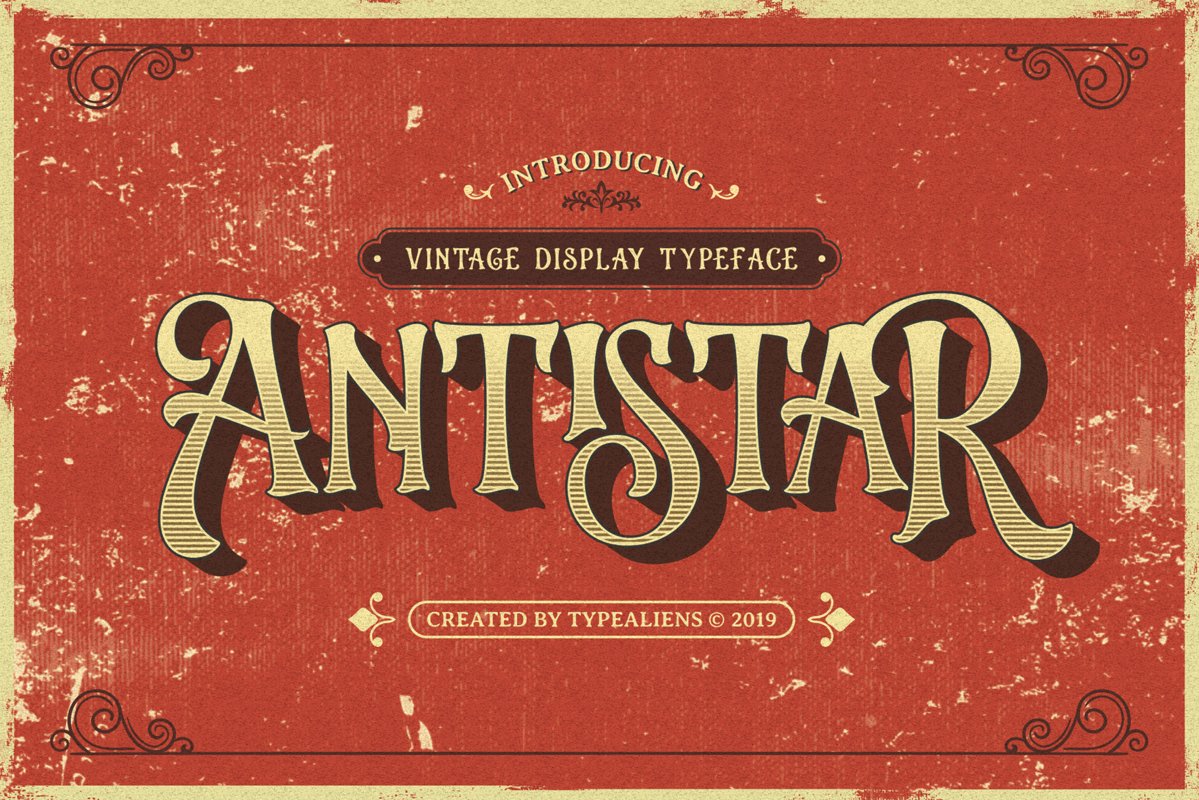
Antistar
ANTISTAR is a display font with a classic style.
Antistar is perfect for logos, posters or other branding needs with a vintage feel.
In addition to standard character letters such as capital letters and lowercase letters, as well as numbers and punctuation marks, Antistar also has quite a number of Standard Ligatures and Discretionary Ligatures. Some letters are also available Alternative Characters.
Ligatures.
Discretionary Ligatures
Alternative Characters.
Extras.
Support Multilingual Characters.